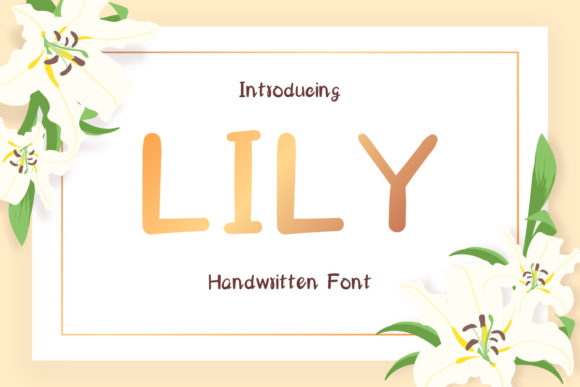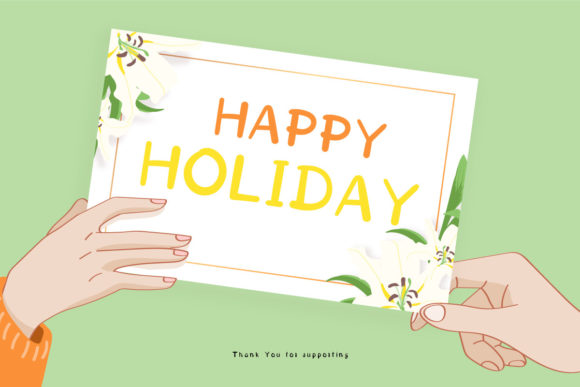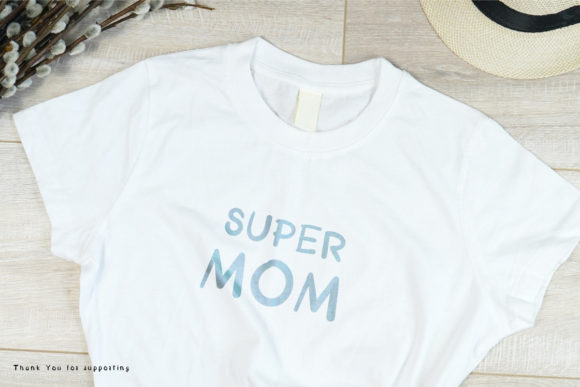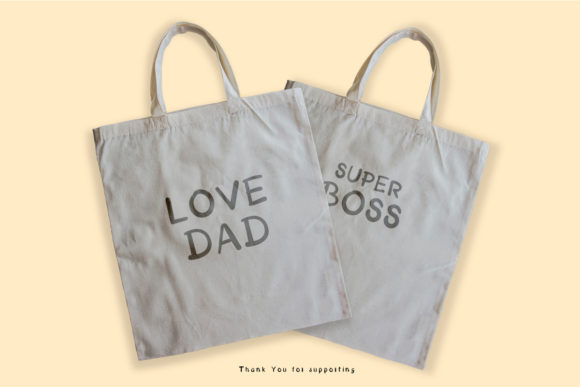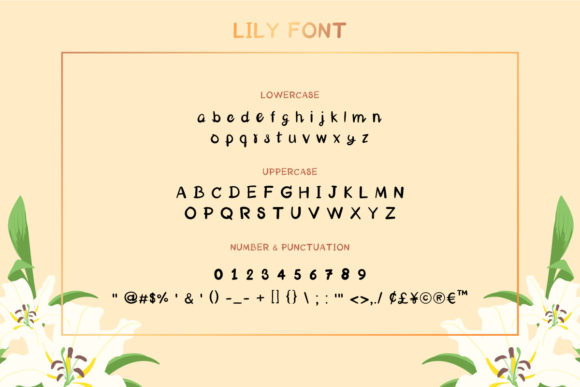
Lily Font
About Lily Font
Lily is a playful, lovely, and timeless handwritten font perfect for any design project such as logos, cards, invitations, posters, and many more. Add this beautiful font to your library, and take your designs to the next level!